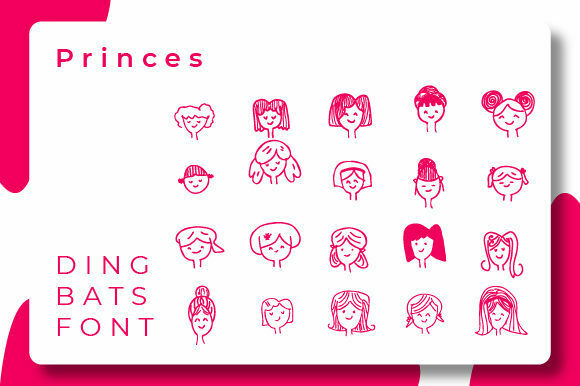
About Princess Font
Princess is an enchanting and incredibly unique dingbats font that can add a touch of magic and whimsy to your designs. Here are some reasons why Princess is a great addition to your font collection:
1. Fairy Tale Elements: The dingbats in Princess are designed with a fairy tale theme in mind. You’ll find charming icons and symbols related to princesses, castles, crowns, magic wands, unicorns, fairies, and other enchanting elements. These icons can bring a sense of wonder and fantasy to your designs.
2. Versatility in Design: Princess offers a variety of icons and symbols that can be used in a wide range of designs. Whether you’re creating invitations for a princess-themed party, designing a fairy tale-inspired logo, or adding decorative elements to a children’s book, Princess has you covered. The icons can be used as accents, illustrations, or even as decorative dividers and borders.
3. Unique and Appealing Style: Princess stands out with its unique and appealing style that captures the essence of fairy tales. The icons are intricately designed with attention to detail, featuring delicate lines, graceful curves, and whimsical motifs. The font’s charming aesthetic can instantly make your designs more captivating and memorable.
4. Enhancing Branding: If you have a brand that aligns with a fairy tale or princess theme, Princess can help enhance your branding. By incorporating these unique dingbats into your logo, packaging, website, or marketing materials, you can create a cohesive and visually engaging brand identity that appeals to your target audience.
6. Captivating Storytelling: Princess dingbats can help you tell captivating stories through your designs. Whether you’re creating illustrations for a children’s book, designing a poster for a fairy tale-themed event, or crafting magical graphics for social media, Princess can bring your stories to life and create a sense of wonder and excitement.
In summary, Princess is a useful and incredibly unique dingbats font that can add a touch of enchantment to your designs. With its fairy tale elements, versatility in design, unique style, and ease of use, this font provides a valuable resource for creating visually captivating and magical designs.